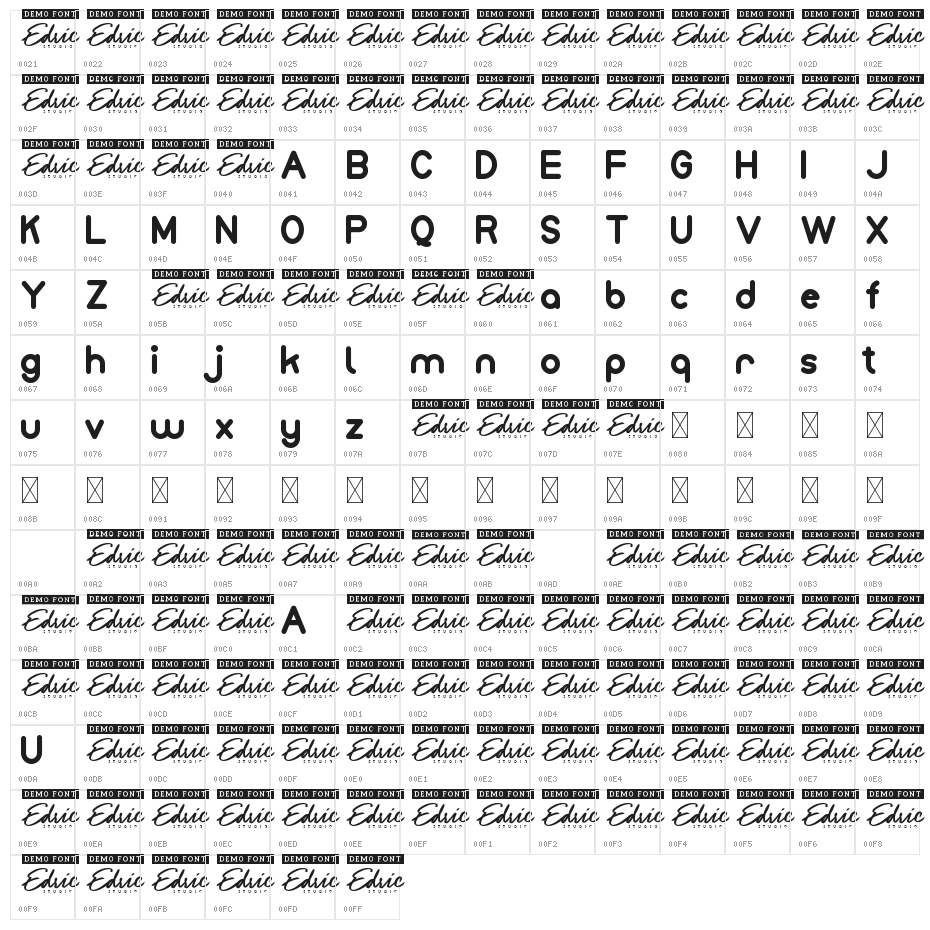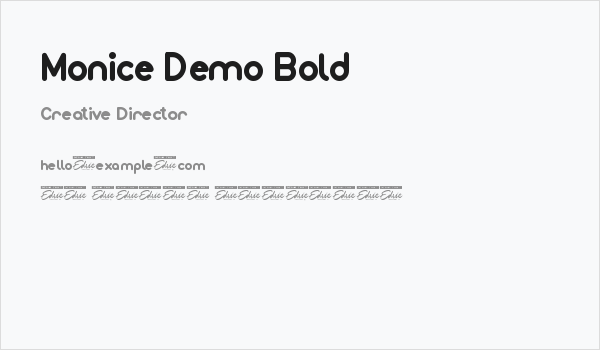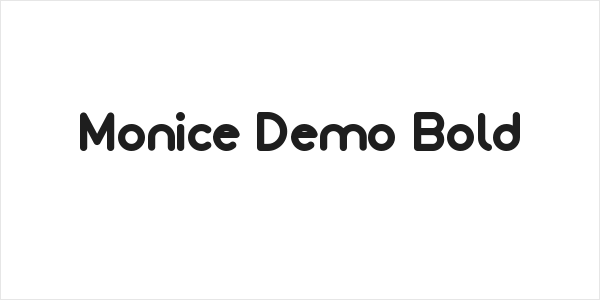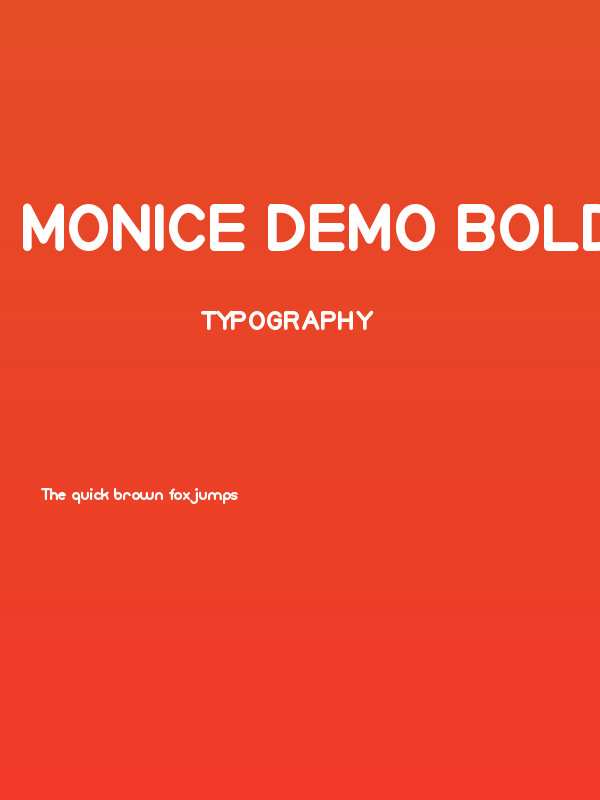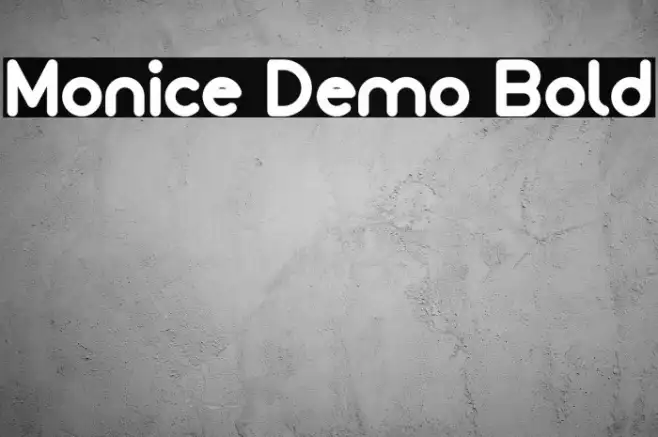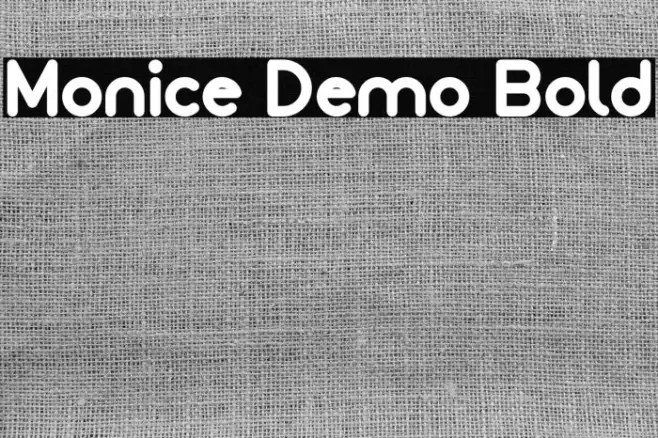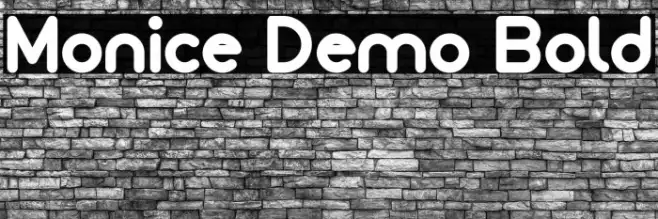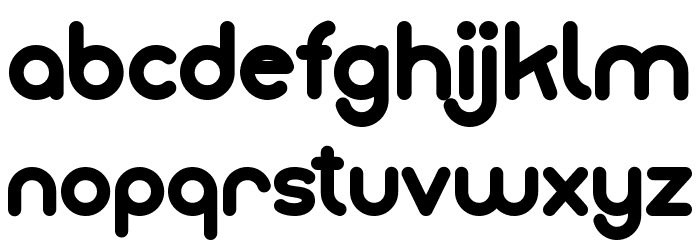
Monice Demo Bold Font
Monice Demo Bold Description
This font features a bold, rounded style with smooth curves and a modern aesthetic. The uppercase and lowercase letters maintain a consistent weight, providing a cohesive look across all characters. The rounded edges give it a friendly and approachable feel, making it suitable for a variety of design projects. The numerals and special characters follow the same design principles, ensuring uniformity throughout. Its boldness and rounded forms make it stand out, while the clean lines and lack of serifs contribute to a contemporary appearance.
| Proposed Projects | Ideal for branding, logos, headlines, and social media graphics where a modern and approachable look is desired. |